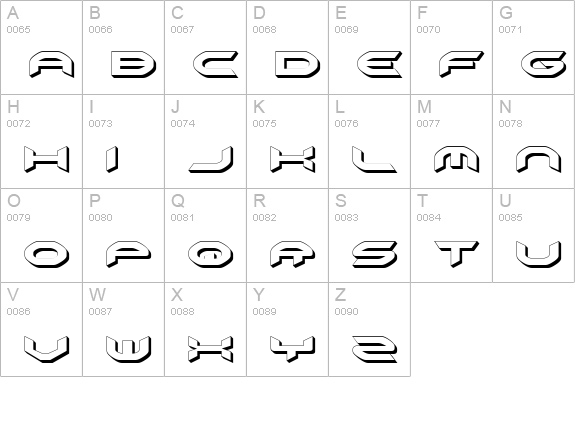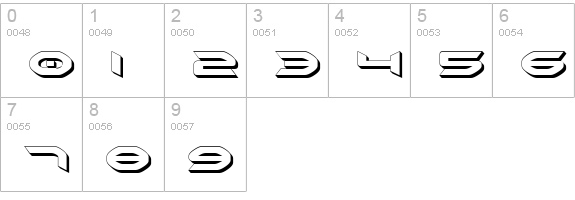
Introducing Omni Girl 3D, a stunning and eye-catching font that is sure to make your designs pop! This unique 3D font features a modern and futuristic style, perfect for adding a touch of sophistication to any project. The intricate details of Omni Girl 3D give it a dynamic and impactful appearance, making it ideal for posters, logos, and other creative ventures. The best part? Omni Girl 3D is available for free download at FontsMarket.com! This means you can easily access this gorgeous font and incorporate it into your designs without any cost. Don't miss out on the opportunity to elevate your projects with the striking beauty of Omni Girl 3D. Download it today and let your creativity soar!